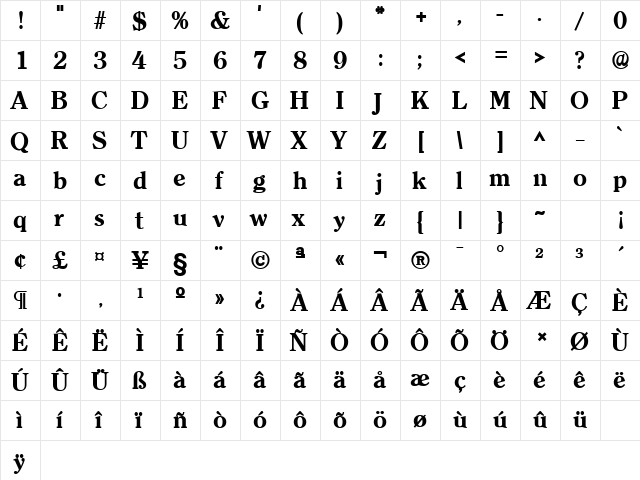
Clarity Serif Heavy SF Bold
Design Context for Clarity Serif Heavy SF Typeface
Clarity Serif Heavy SF brings classic typographic sensibility to the table — its serifs and measured letterforms reflect centuries of print heritage. The heavy weight commands attention and anchors typographic hierarchies.
Pro Tip: Use Clarity Serif Heavy SF for editorial body copy and considered headline work. Pair with a neutral sans for UI elements or captions to create a classic hierarchy.